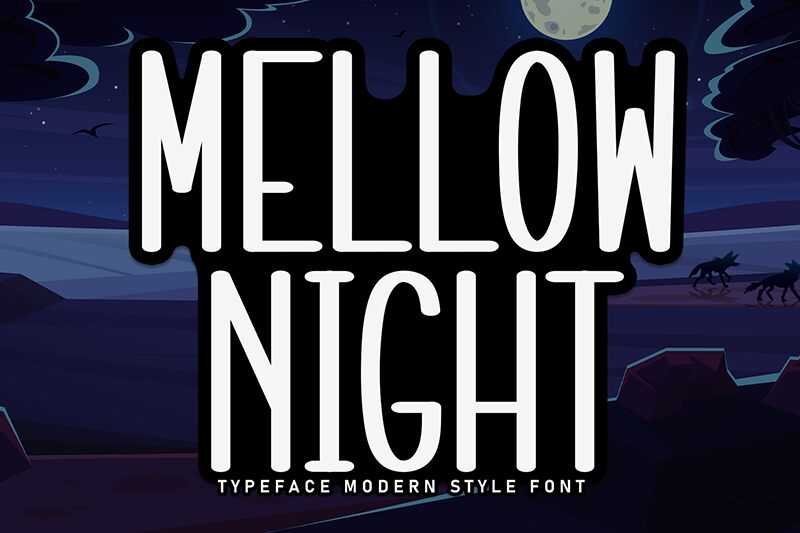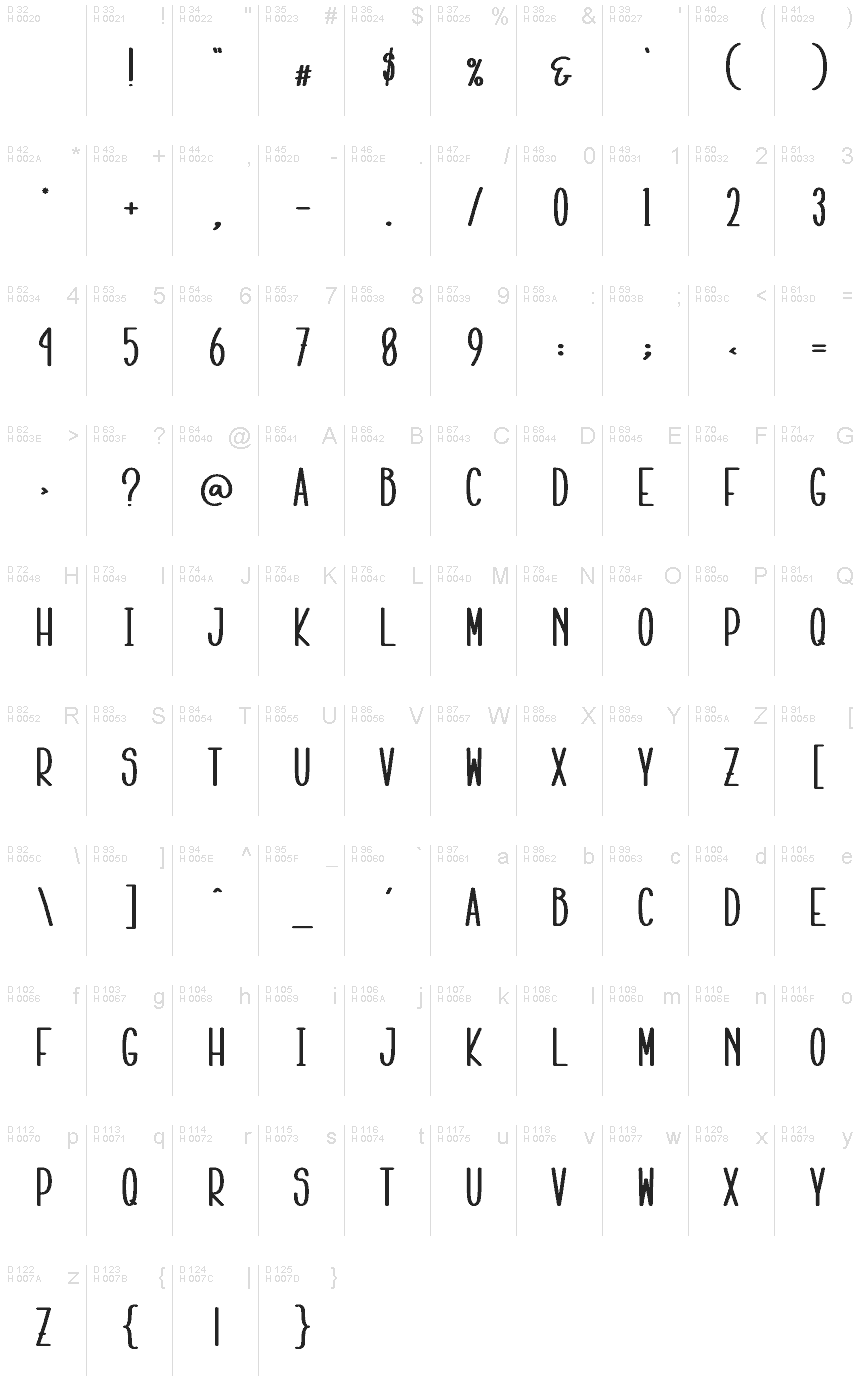
Mellow Night
Mellow Night font is a free handwritten font by Scratchones with vintage-inspired, but modern aesthetics. This condensed typeface presents casual elegance, subtle charm, and a touch of artistic flair in the most beautiful way possible. The pleasant curves and lines bring a subtle whimsy that form an ideal addition to elegant and feminine projects.
Field where this creation can be used include but are not limited to digital planners, brandings (typically luxury), delicate packaging, hand lettering online courses, posters for artists or musicians’ portfolio showcases and so forth!
Items where the font’s presence enhances beauty include planners (digital products), posters, branding works etc…